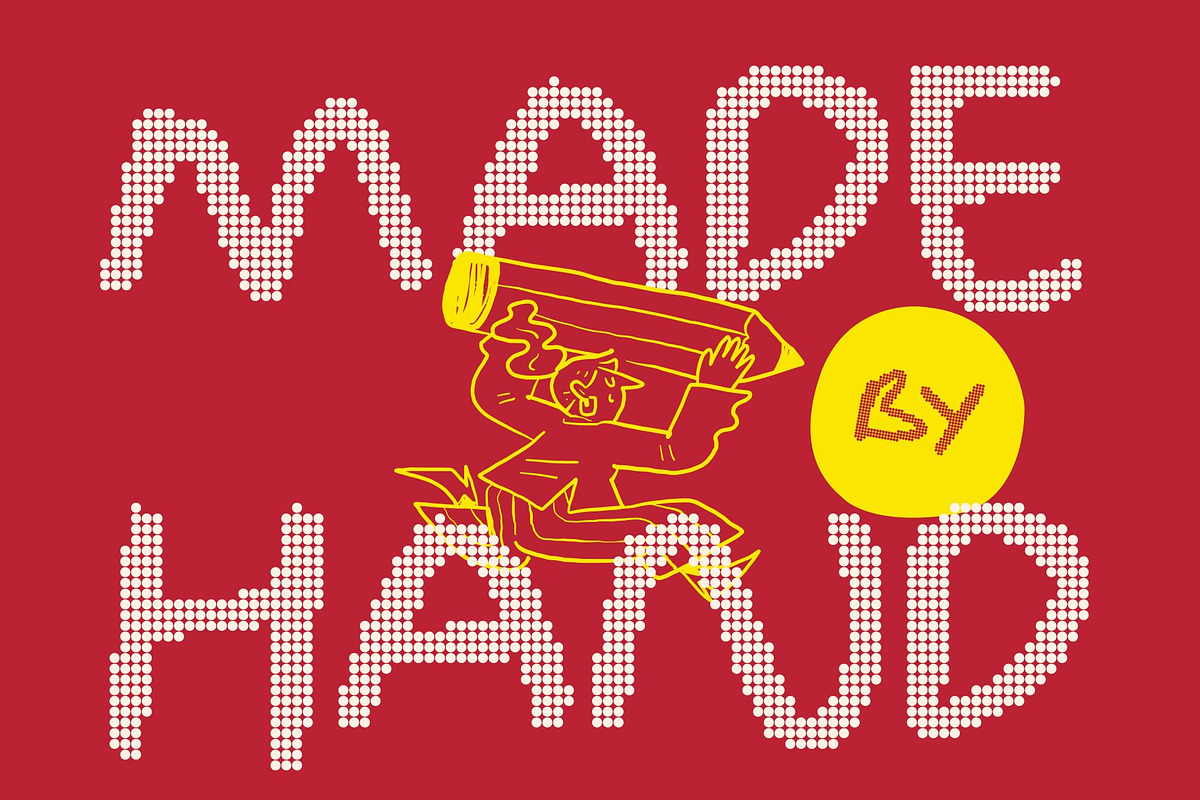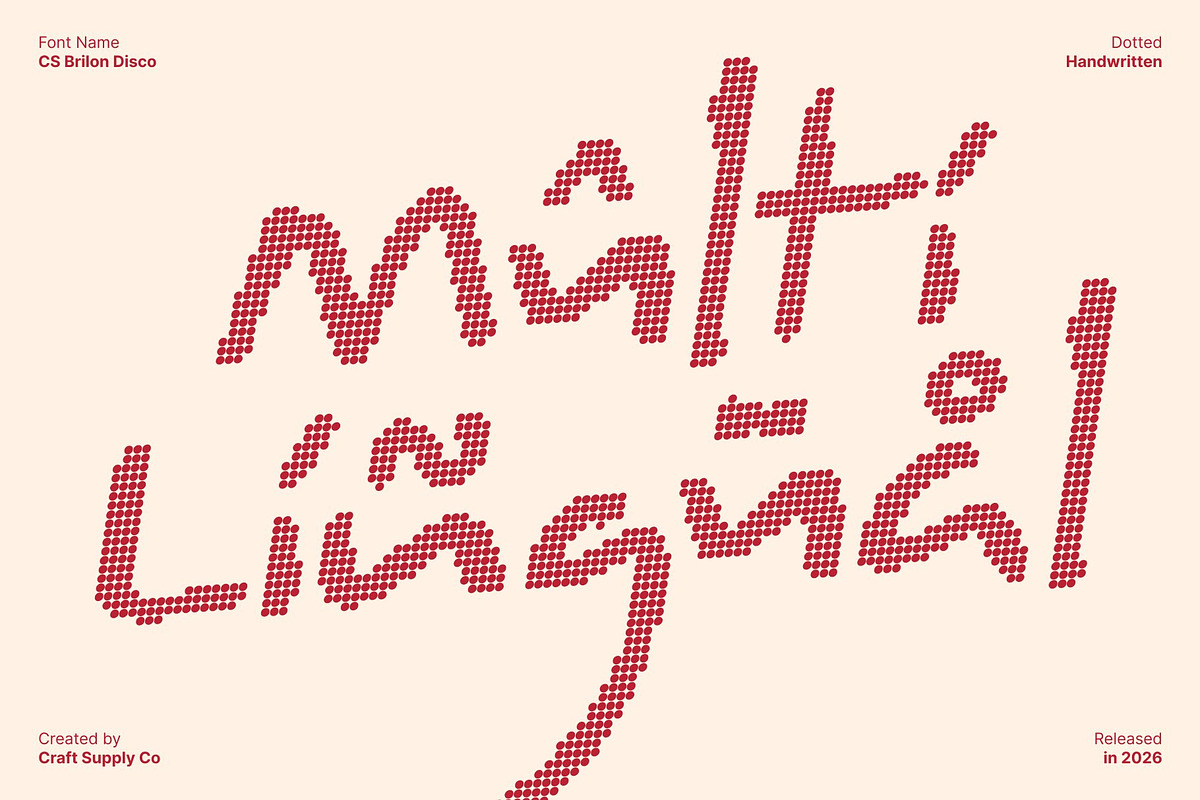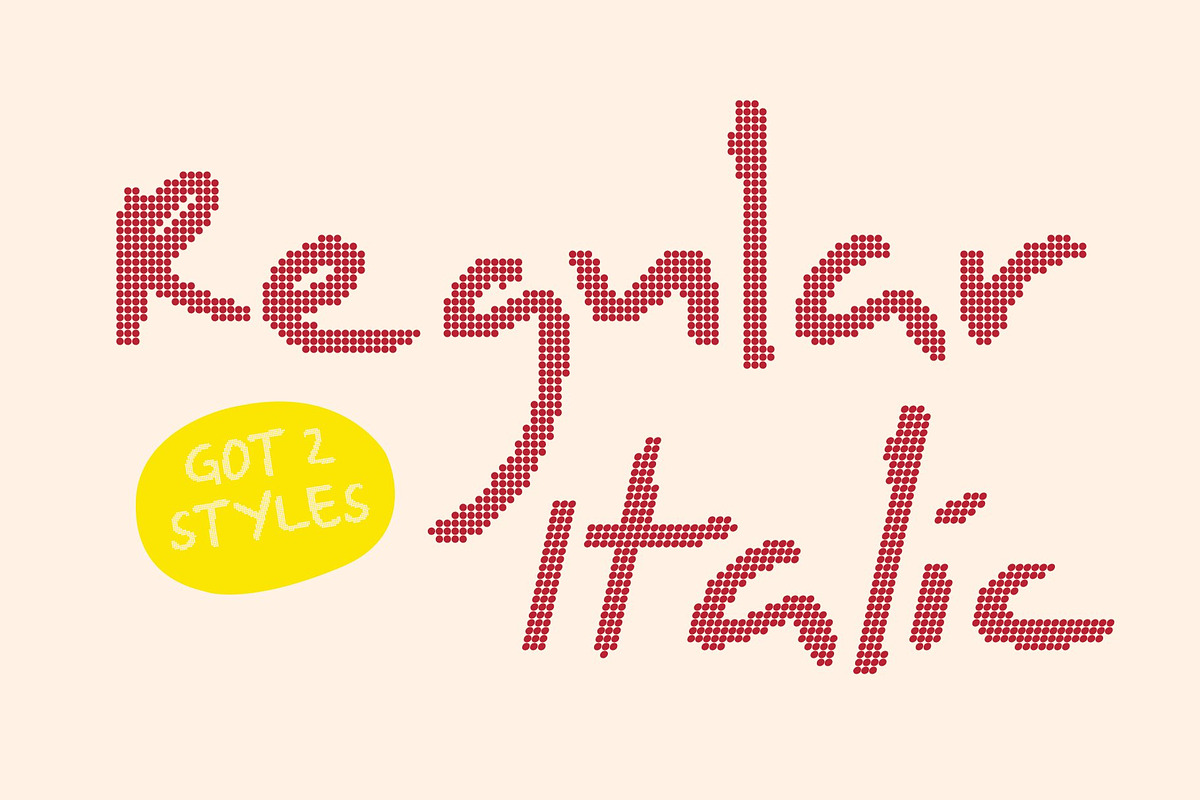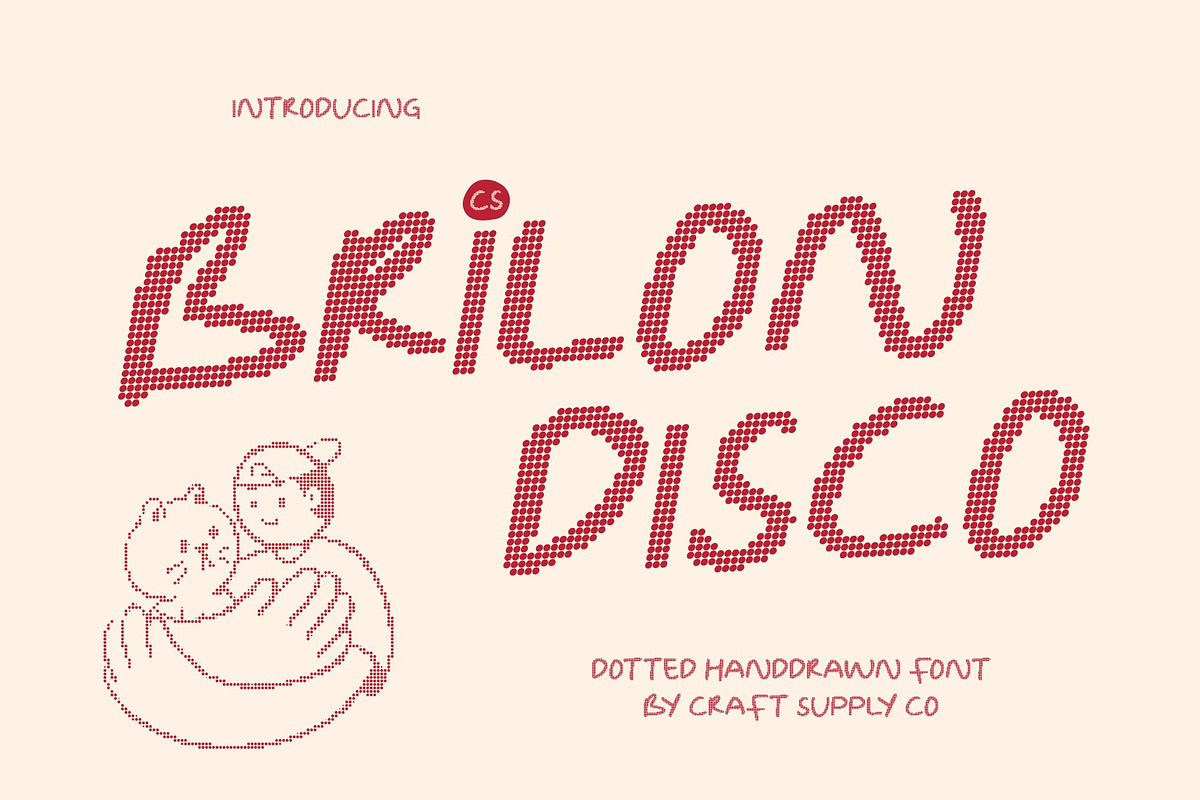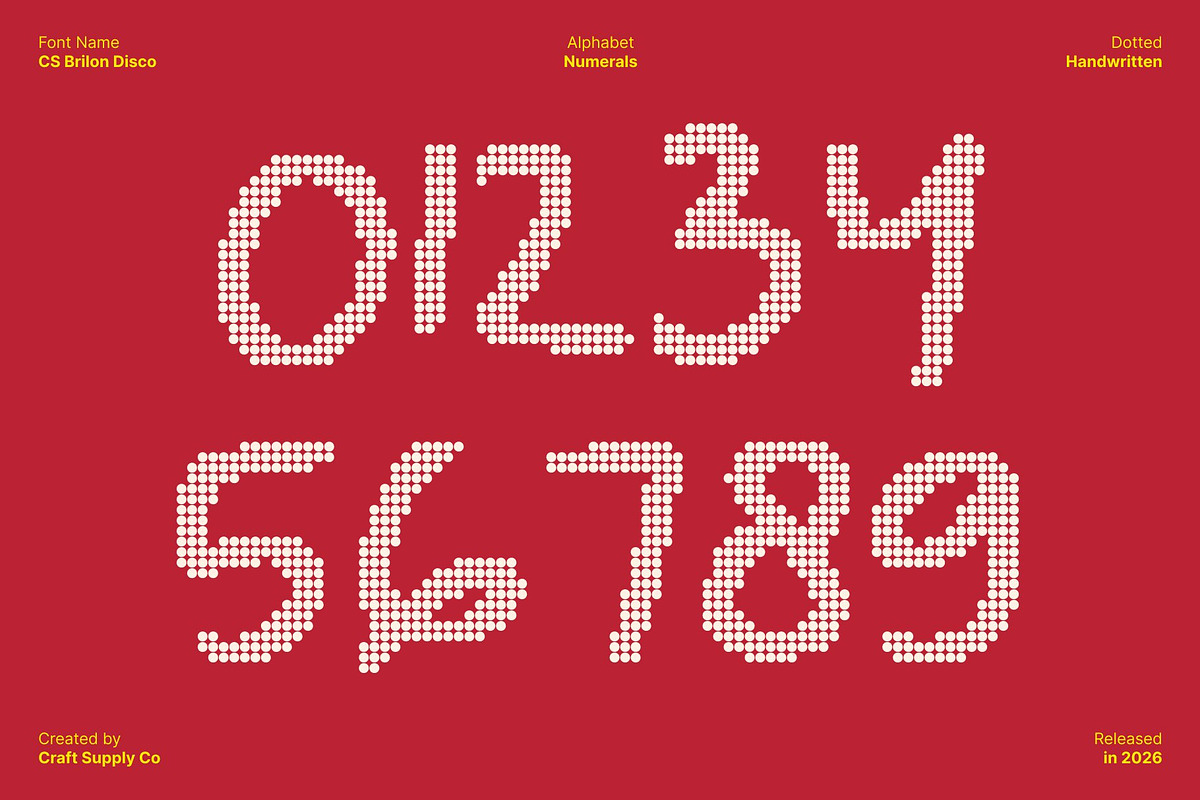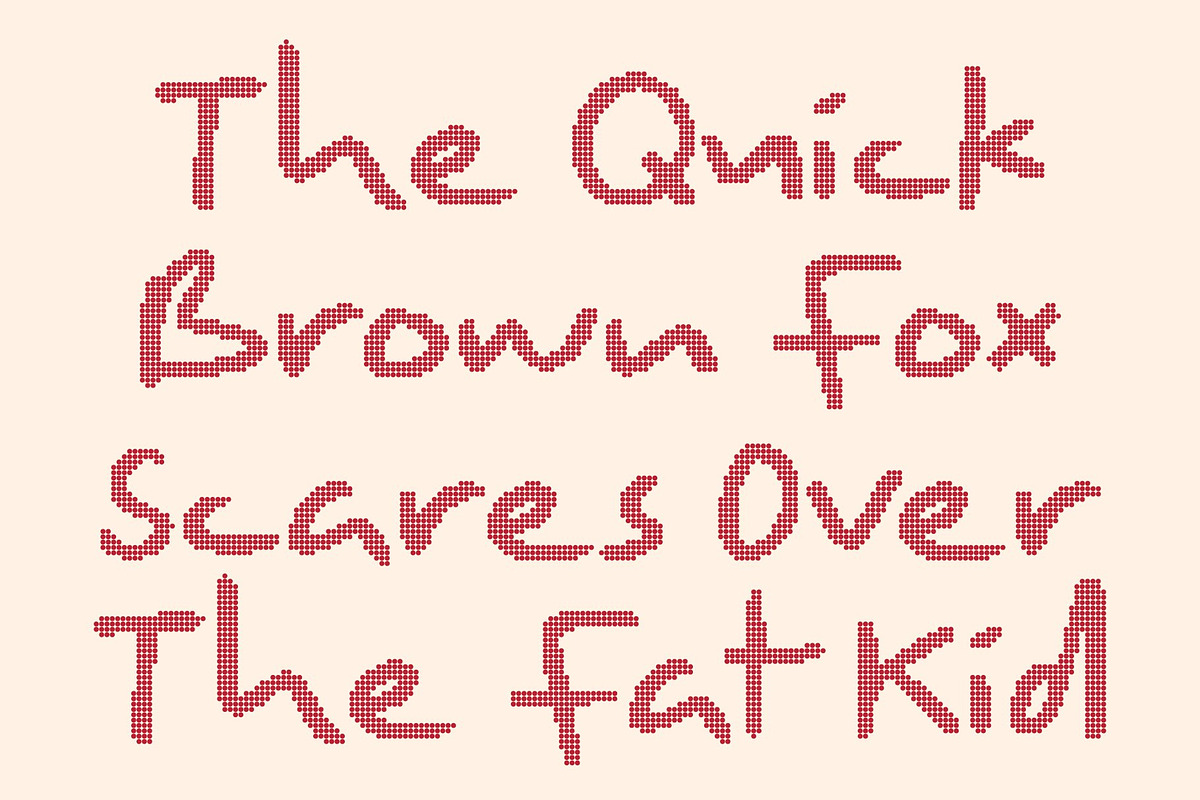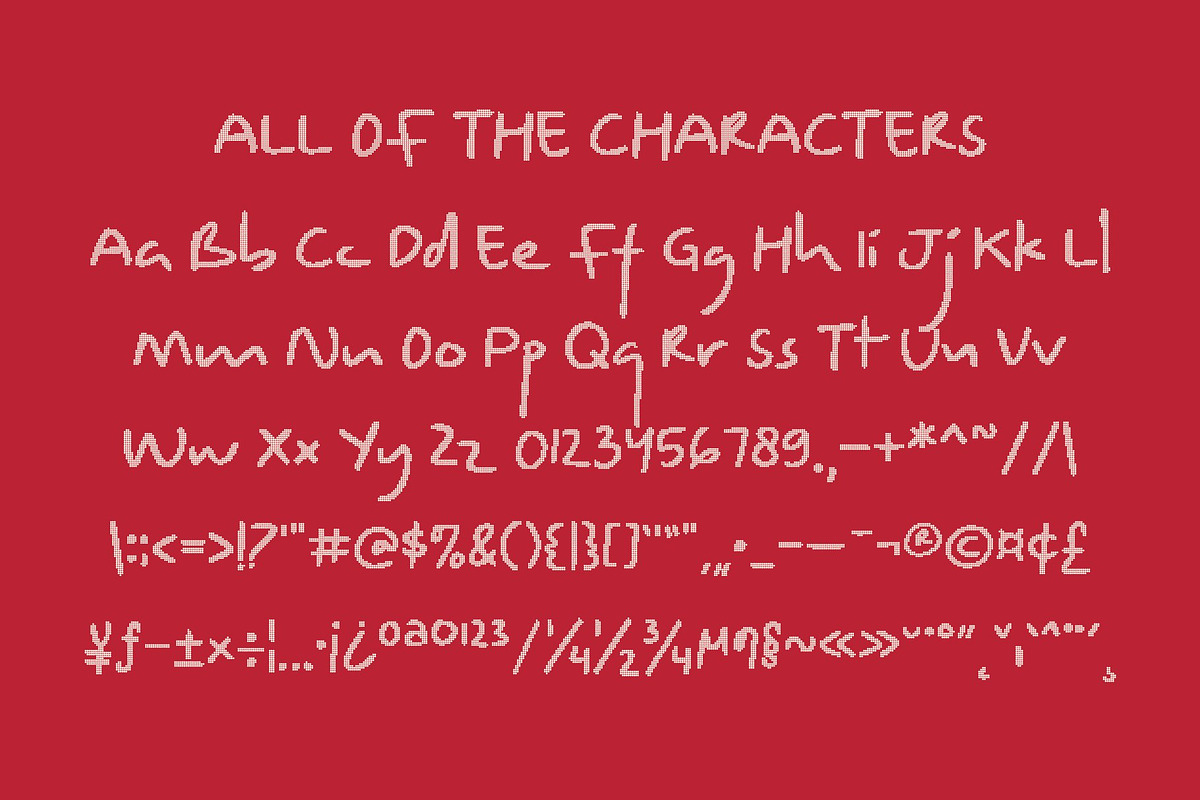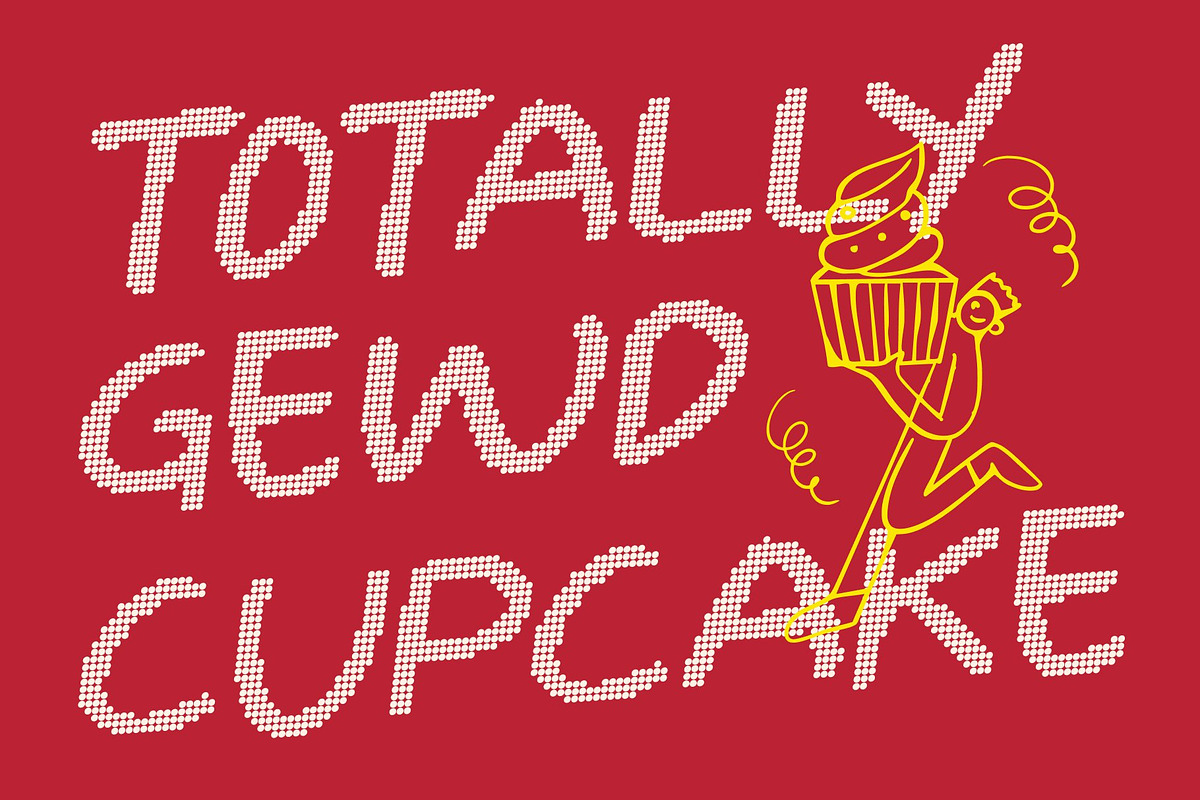
CS Brilon Disco
CS Brilon Disco – Organic Hand-Drawn Expression with Retro Disco Soul
Hand-Drawn Display Font with Textured Disco Character This is a hand-drawn sans serif display font created to celebrate artistic freedom and organic expression, infused with a subtle disco-era vibe. Its textured strokes and imperfect edges deliver a raw, handmade feel that echoes the expressive creativity of the late 70s and early 80s. The result is a font that feels authentic, lively, and full of personality.
Imperfect Edges with Warm Retro Texture The distinctive charm of this font lies in its irregular outlines and visible texture. Each letter carries natural imperfections that add depth, warmth, and rhythmic movement evoking handcrafted lettering mixed with a relaxed disco groove. These tactile details give designs an artistic, human quality while remaining clear and impactful for display use.
Artistic Style with Expressive Disco Energy Designed for creative storytelling, this font thrives in expressive and imaginative environments. Its organic forms and dynamic texture help convey emotion, individuality, and creative confidence. Whether used boldly in headlines or as a central visual element, adds artistic energy and retro-inspired rhythm to any composition.
Perfect for Posters, Packaging, and Creative Branding This is ideal for posters, packaging, creative branding, editorial visuals, and promotional designs that want to stand out with personality. Its handmade, disco-tinted aesthetic makes it especially suited for artisanal products, indie brands, creative studios, and lifestyle projects that value originality, warmth, and expressive design.
CS Brilon Disco Regular
CS Brilon Disco Italic